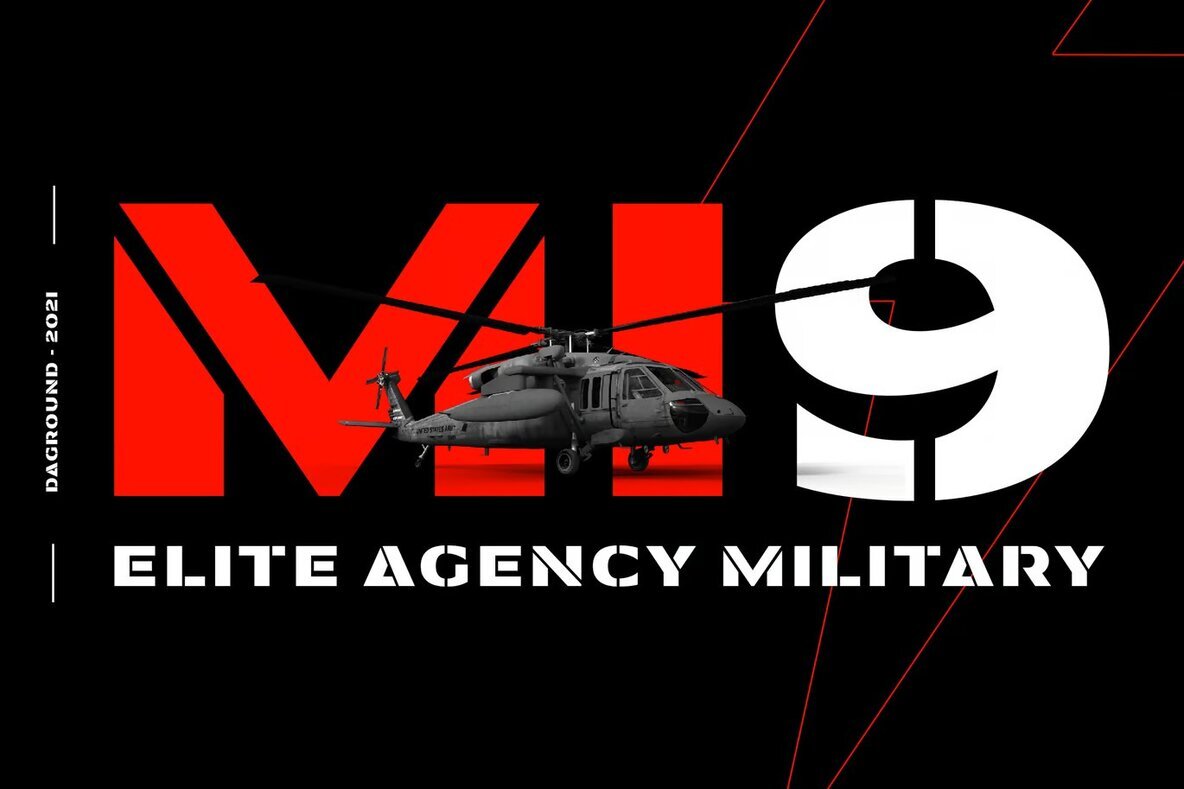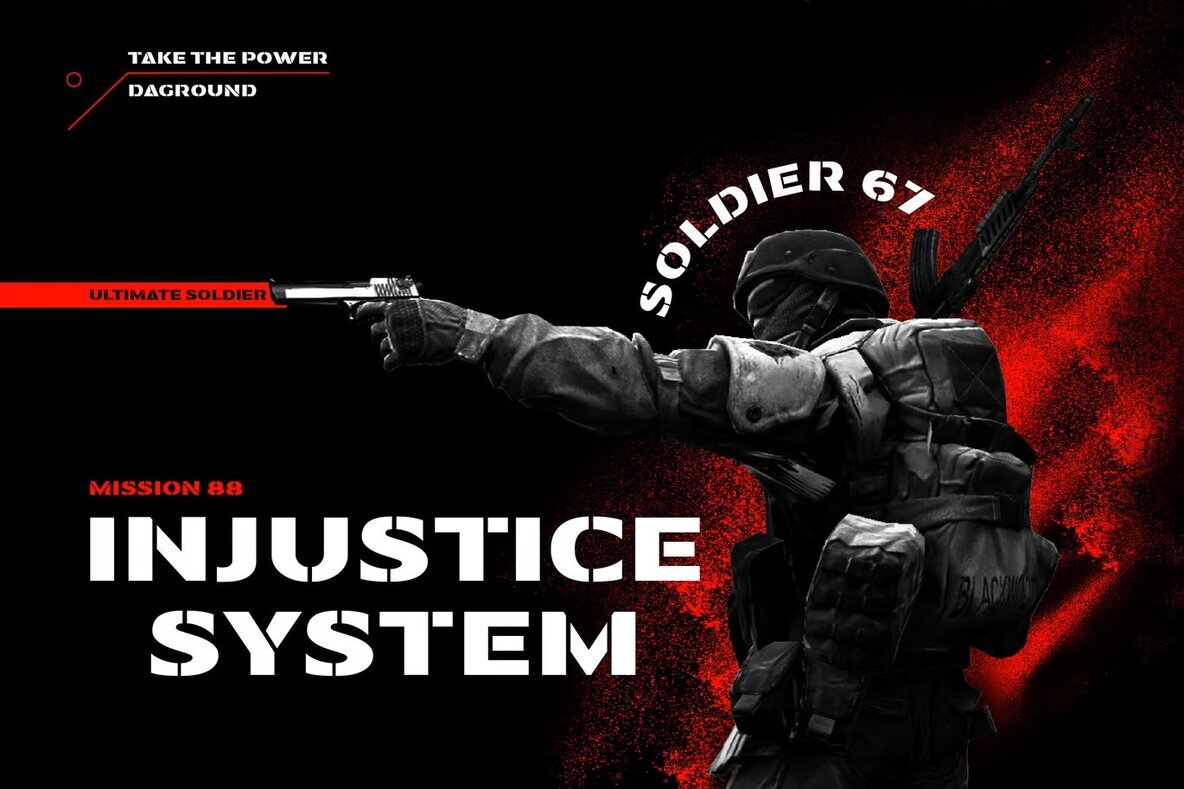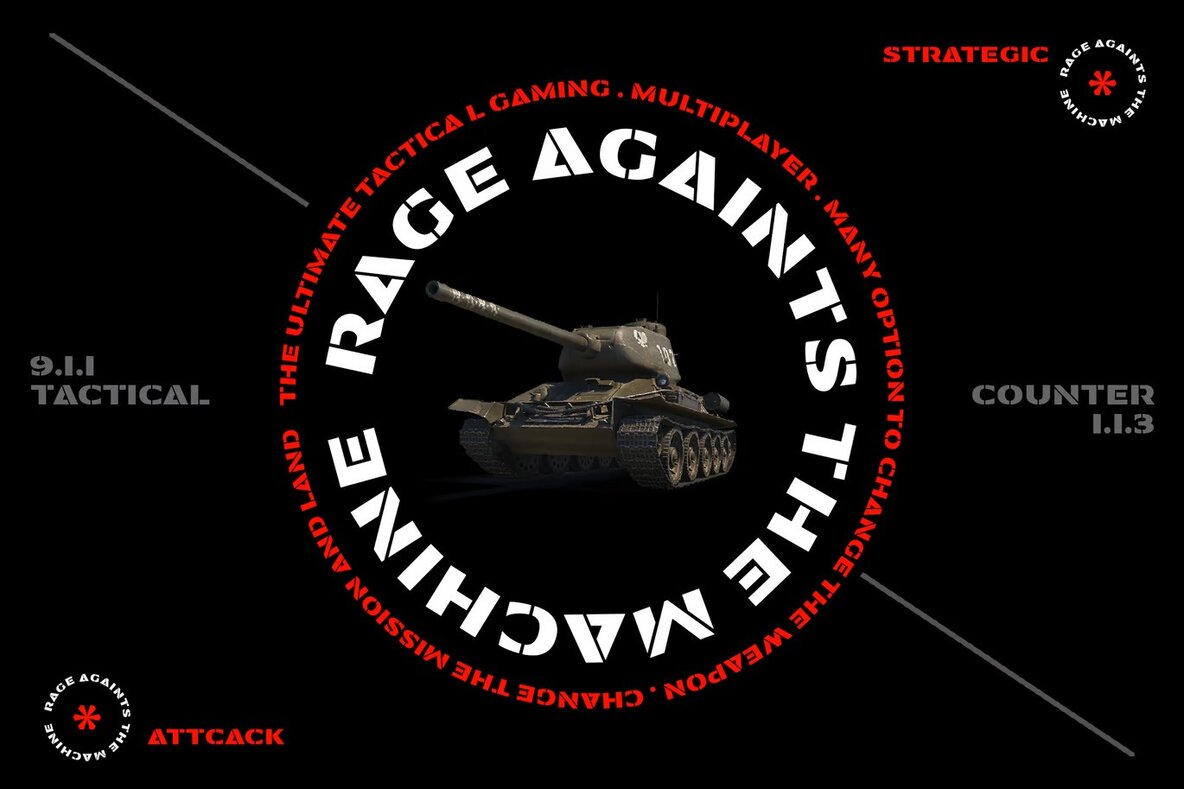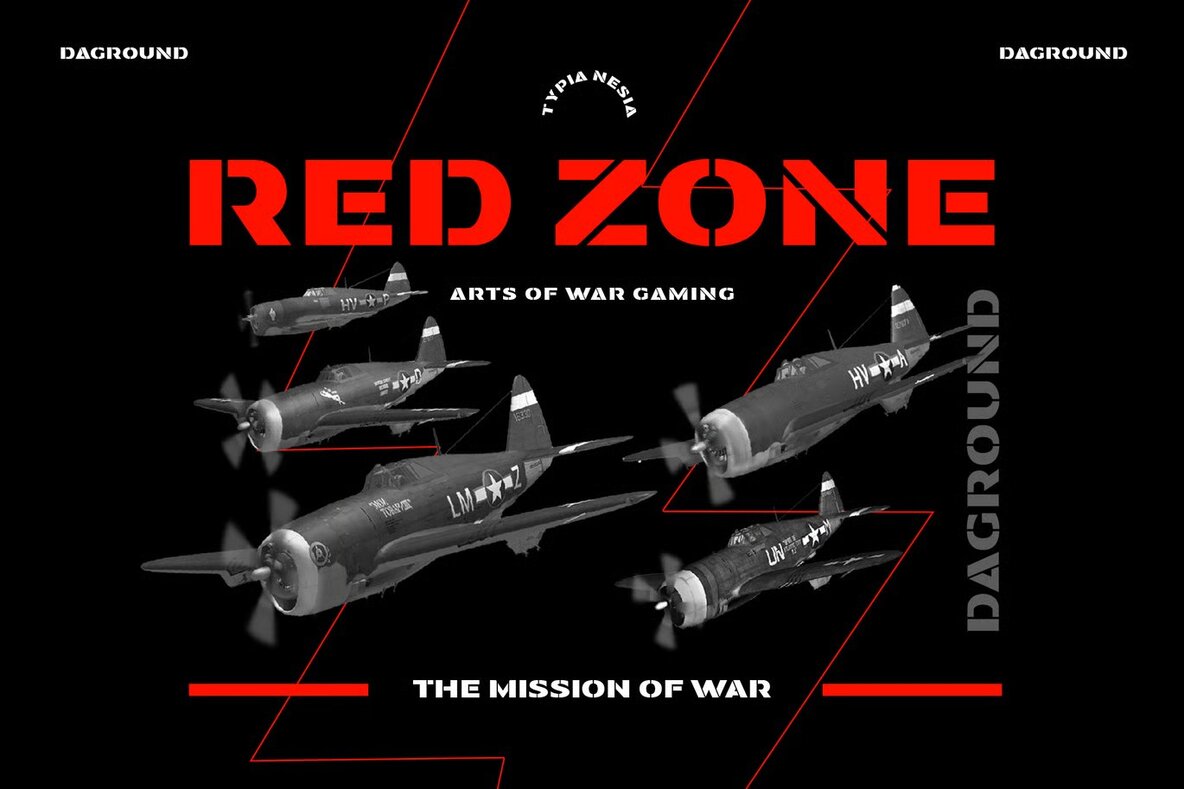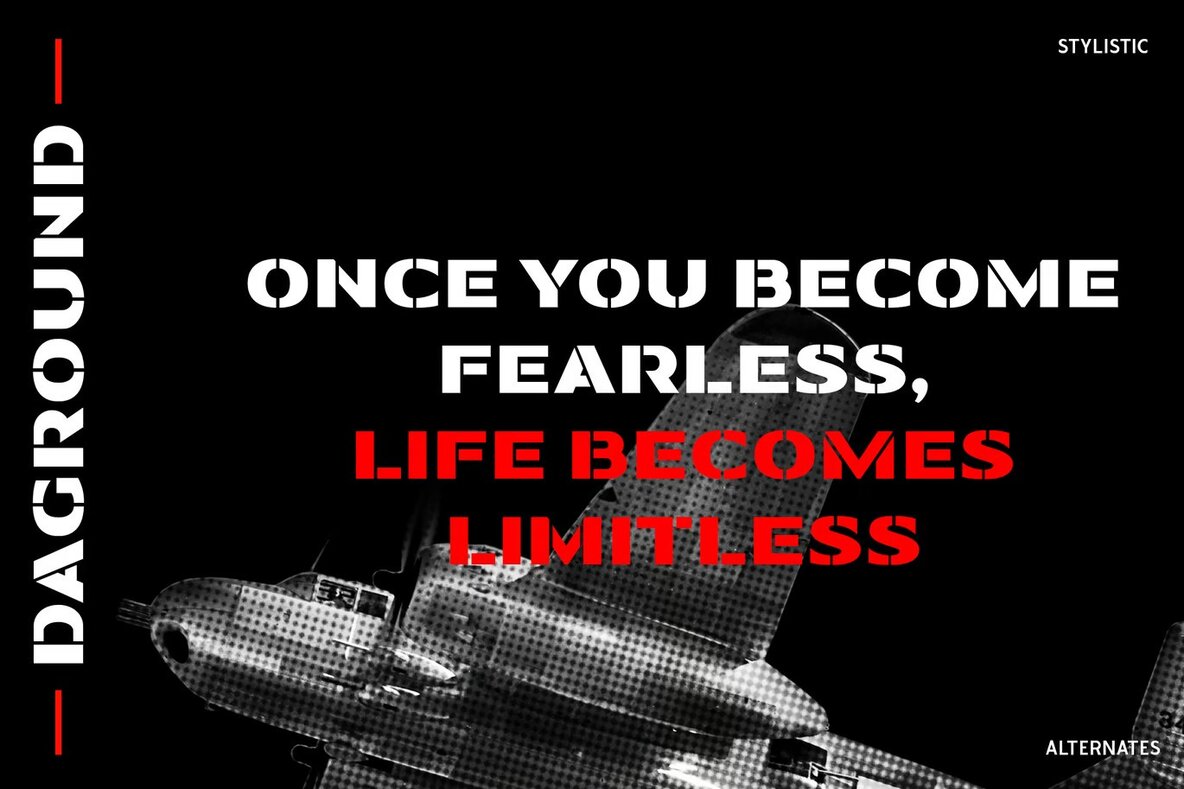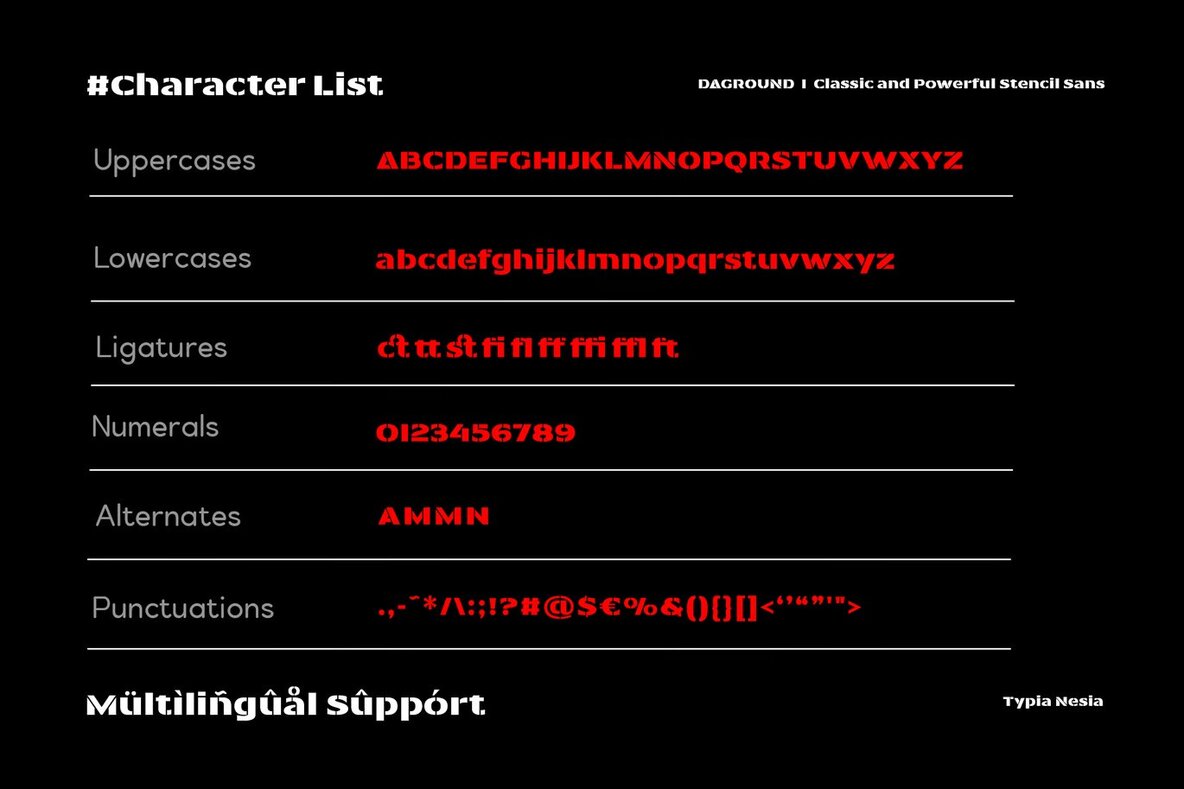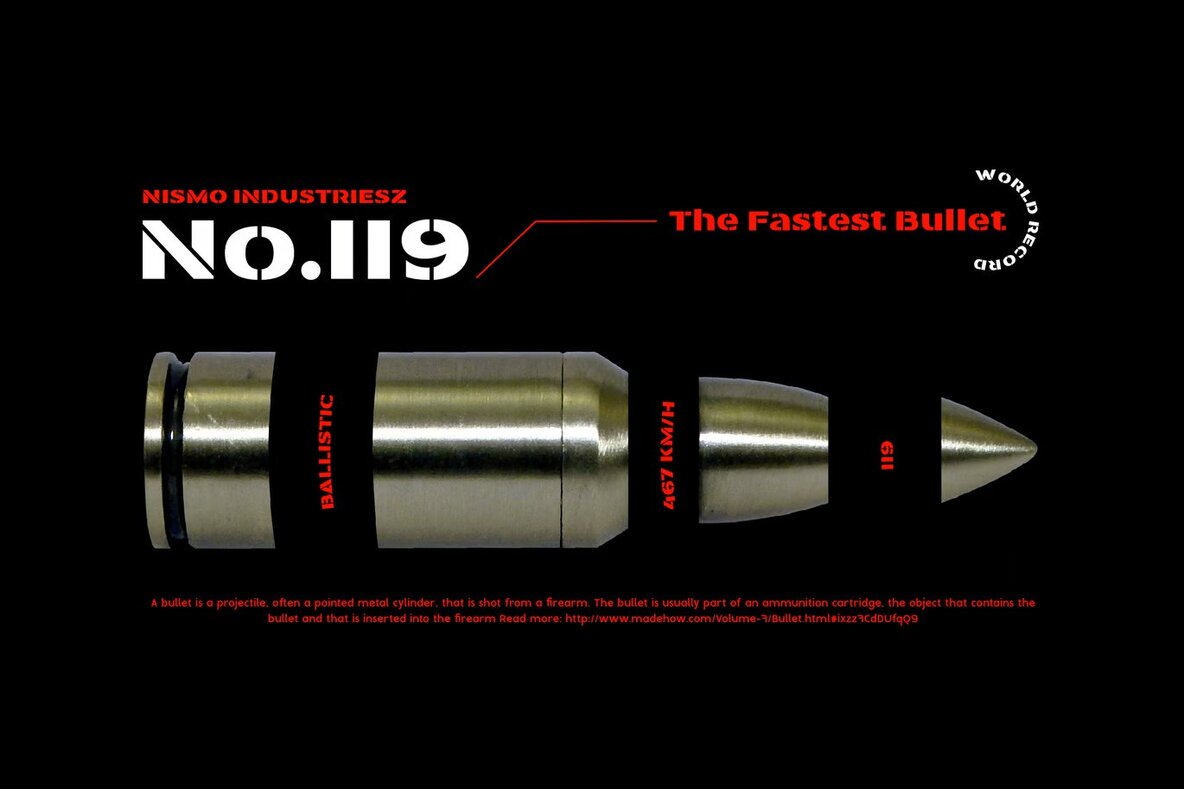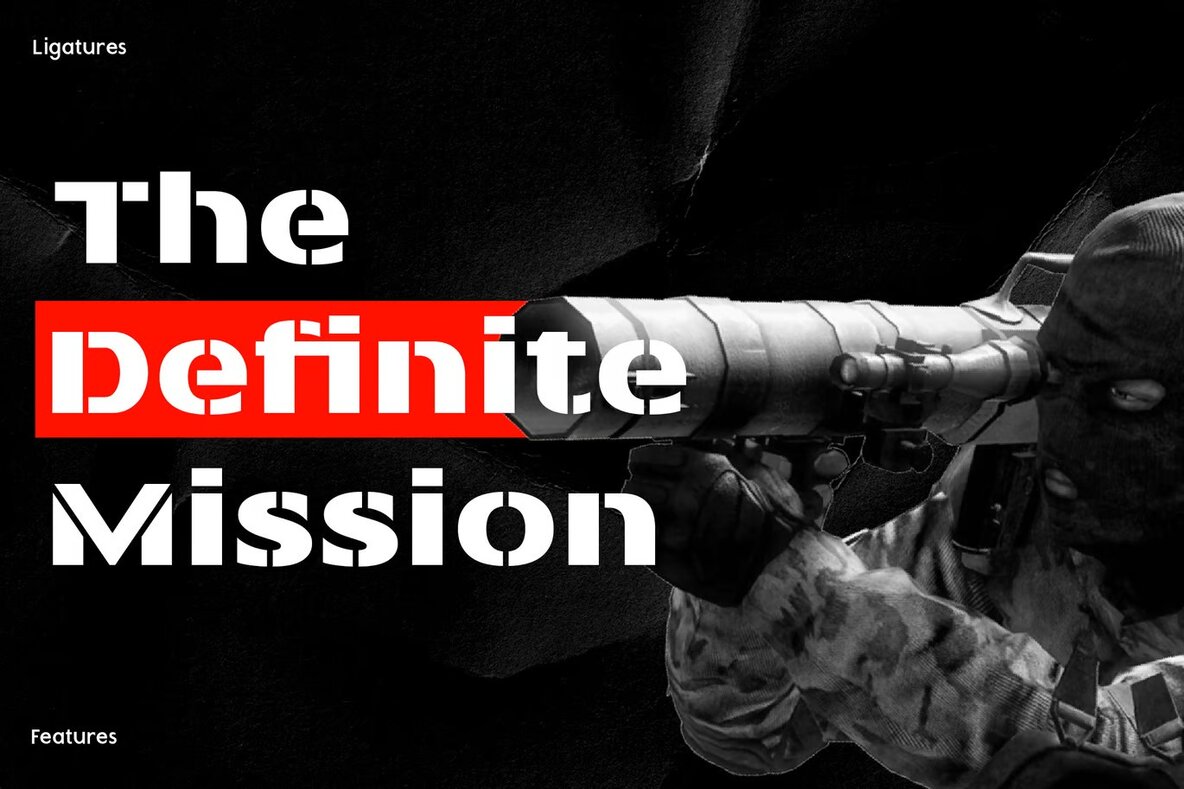
Daground Font
Daground Regular
Daground Bold Stencil Display Sans Serif is a versatile font ideal for a wide range of creative projects. Its bold stencil design offers a striking look, perfect for logo branding, editorial design, and modern advertising. The font's unique style is particularly suited for sporty themes, making it an excellent choice for the racing, esports, and supercar industries. Its retro 80s vibe also makes it ideal for music posters and art quotes, adding a nostalgic yet contemporary touch to your designs.
This dynamic display font can effortlessly enhance various visual applications, from stationery and card invitations to book covers and home decor projects. The distinct military-inspired aesthetic makes it a strong candidate for projects requiring a bold, authoritative presence. With its versatile design characteristics, this font perfectly complements special events and promotional materials, providing a cohesive and impactful visual identity across different platforms.